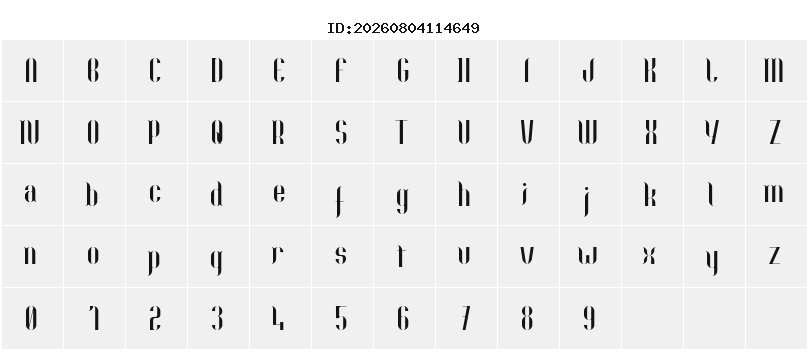
Nolla Preview
• Font Name: Nolla
• Full Font Name: Nolla01
• Designer: Beno”t Sj™holm
About Nolla.ttf
Nolla.ttf is a modern, elegant sans-serif font designed for ultimate readability and visual harmony. Perfect for branding, headlines, web design, and print materials.